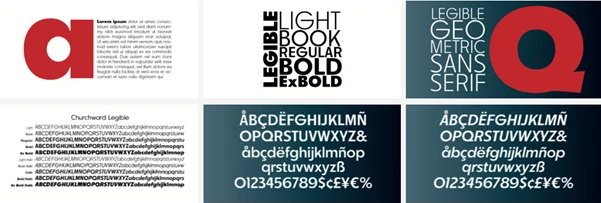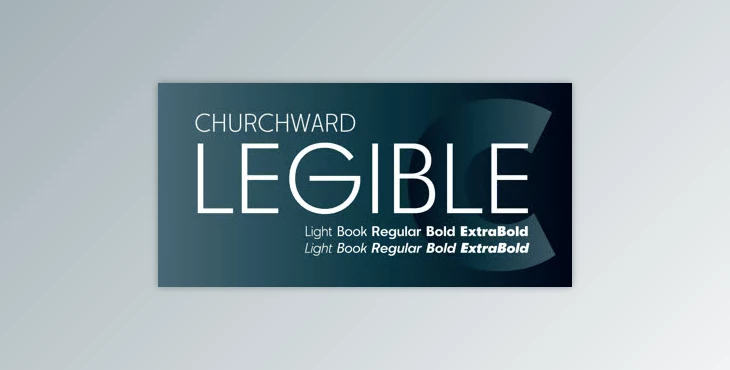
The Churchward Legible typeface family was designed by Joseph Churchward in 2002. It is one of the best readable typefaces for clarity. Not only is it a geometric sans serif family that delivers very legible text on screen and in print, but it also comes in a family of five weights from Light to Extra Bold, plus italics, making it a go-to option for series where designers need to retain a level of consistency among various designs without sacrificing access to different weights.
It's also usable for international projects as an all-inclusive typeface family that supports many European languages; a typeface that boasts increased readability must therefore be one of the most readable typefaces.